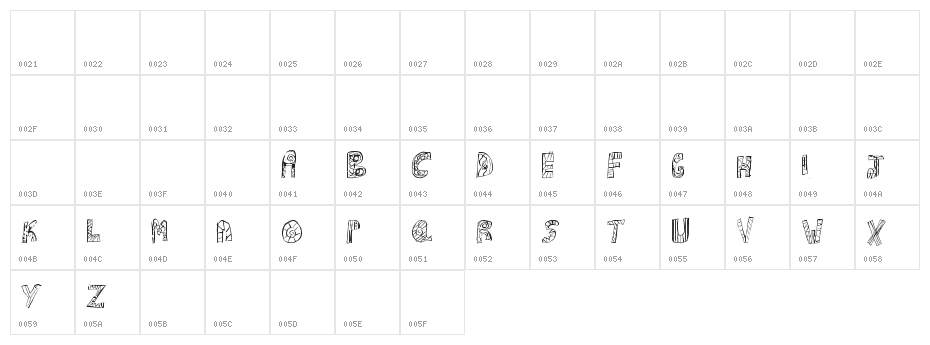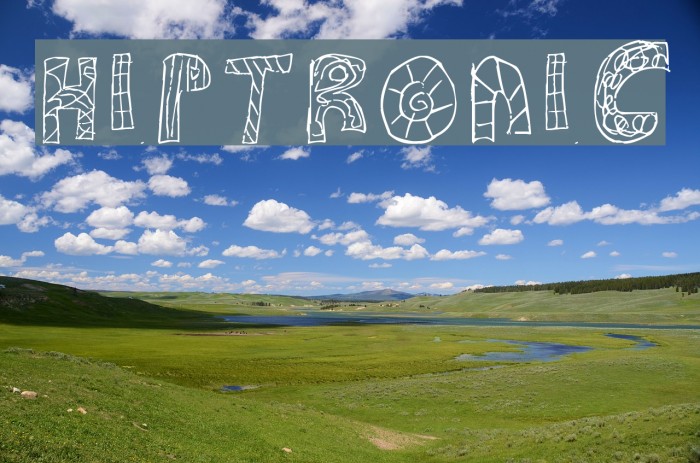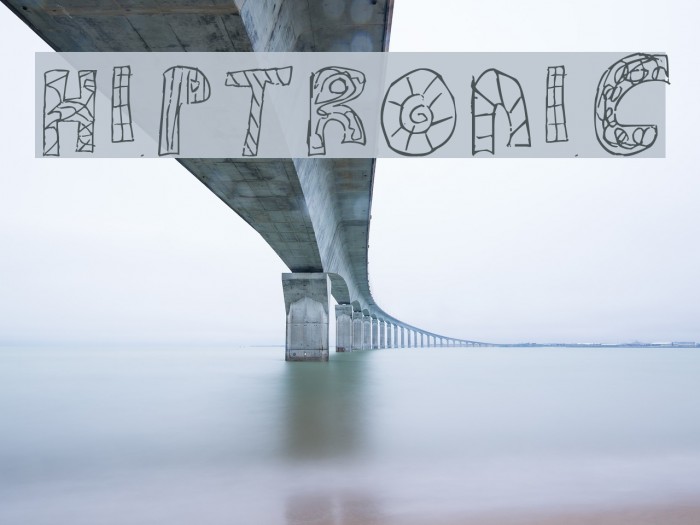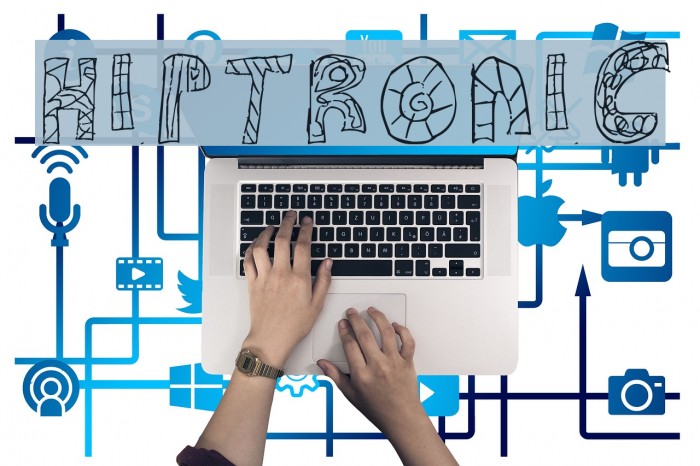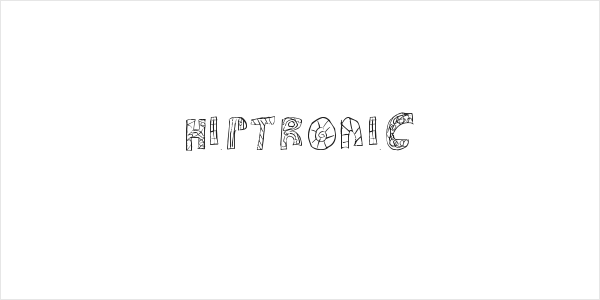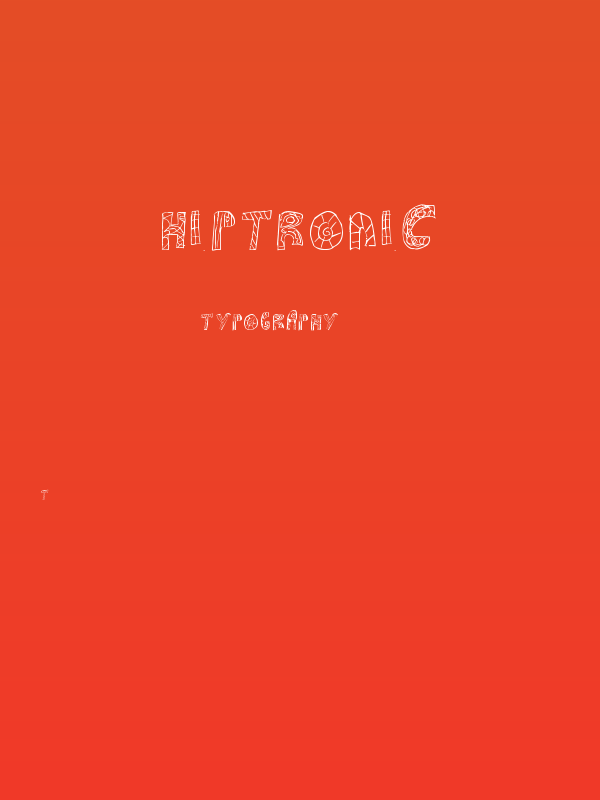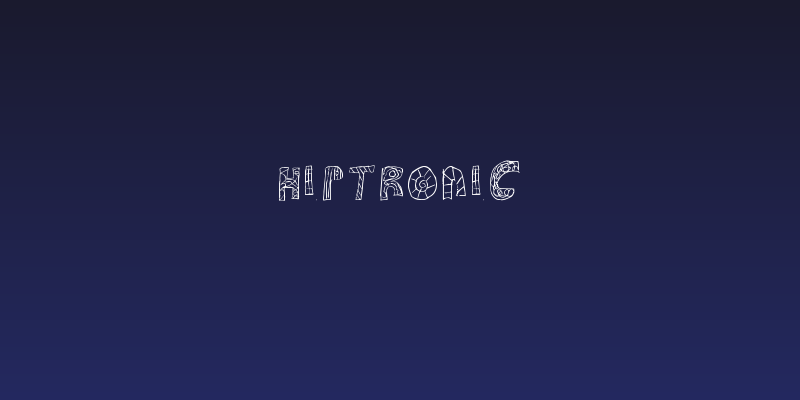
HIPTRONIC Font
HIPTRONIC Description
This font features a playful and artistic design, with each letter adorned with unique patterns and textures. The uppercase letters are bold and eye-catching, incorporating elements like swirls, stripes, and geometric shapes within their outlines. The overall appearance is dynamic and energetic, making it ideal for creative projects. The font's decorative nature lends itself well to designs that require a touch of whimsy and individuality. Its intricate details and varied line work create a sense of movement and fun, perfect for capturing attention in a vibrant and engaging way.
| Proposed Projects | Ideal for posters, children's book covers, creative branding, and event invitations. |